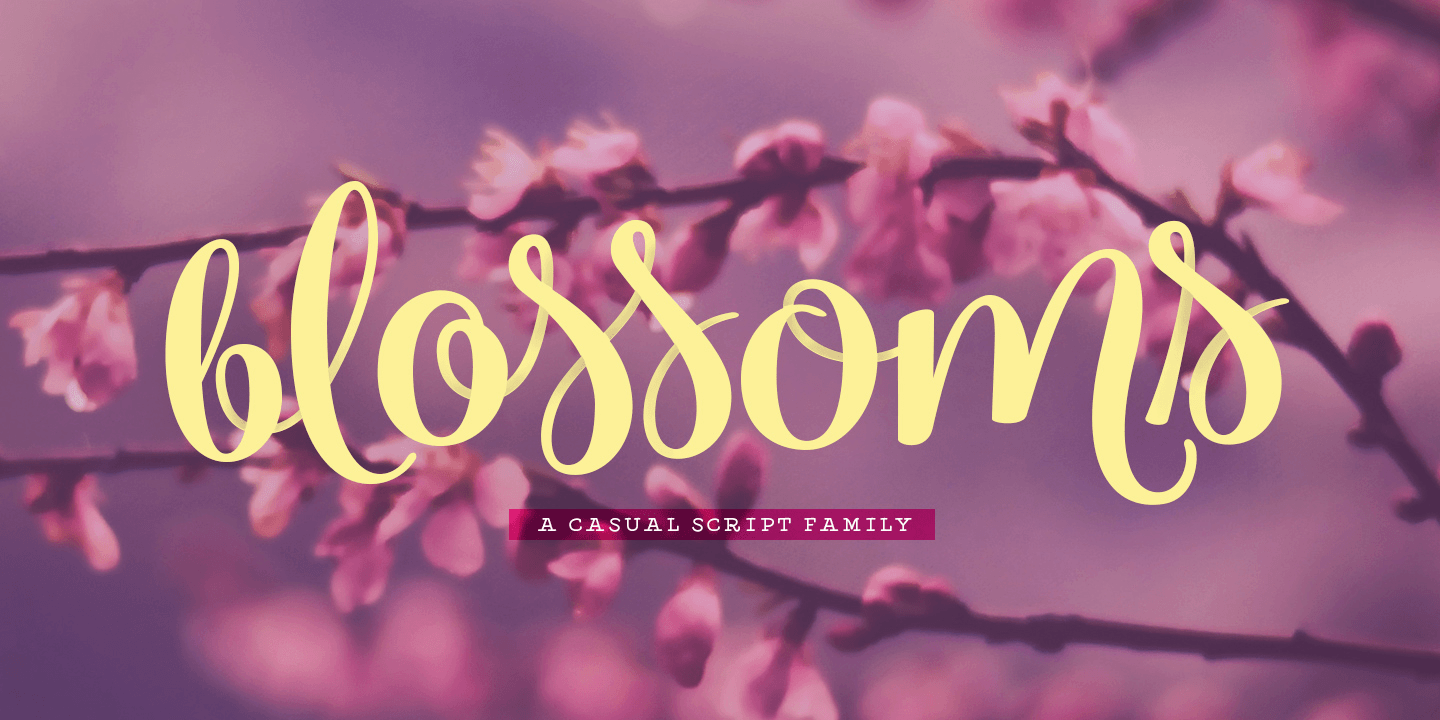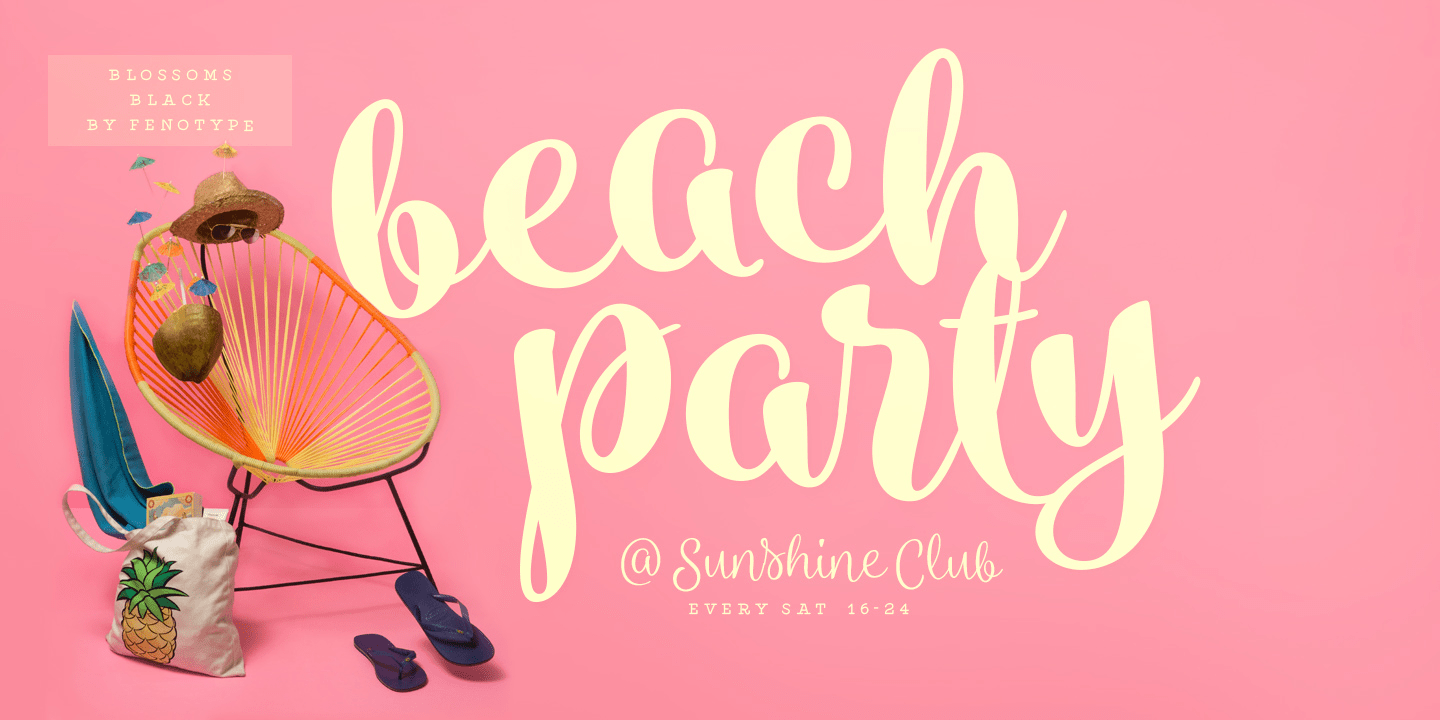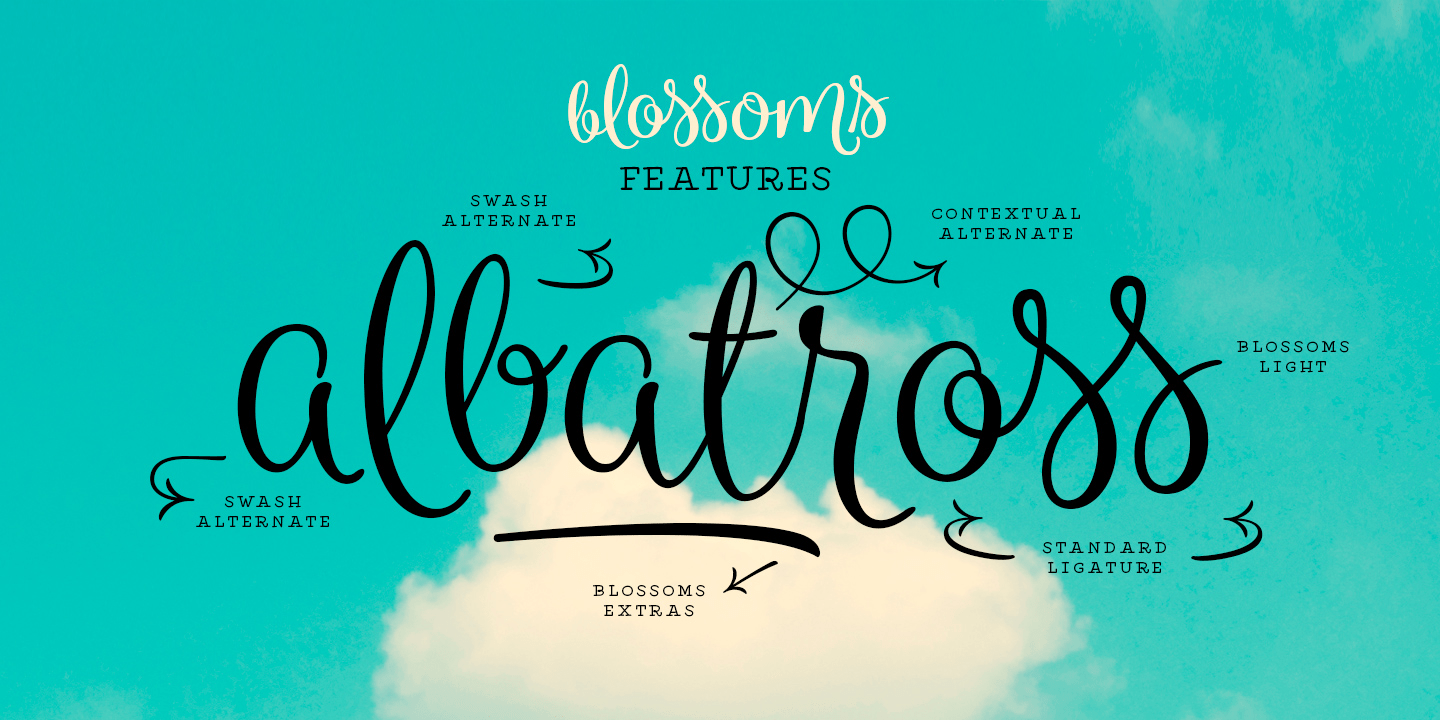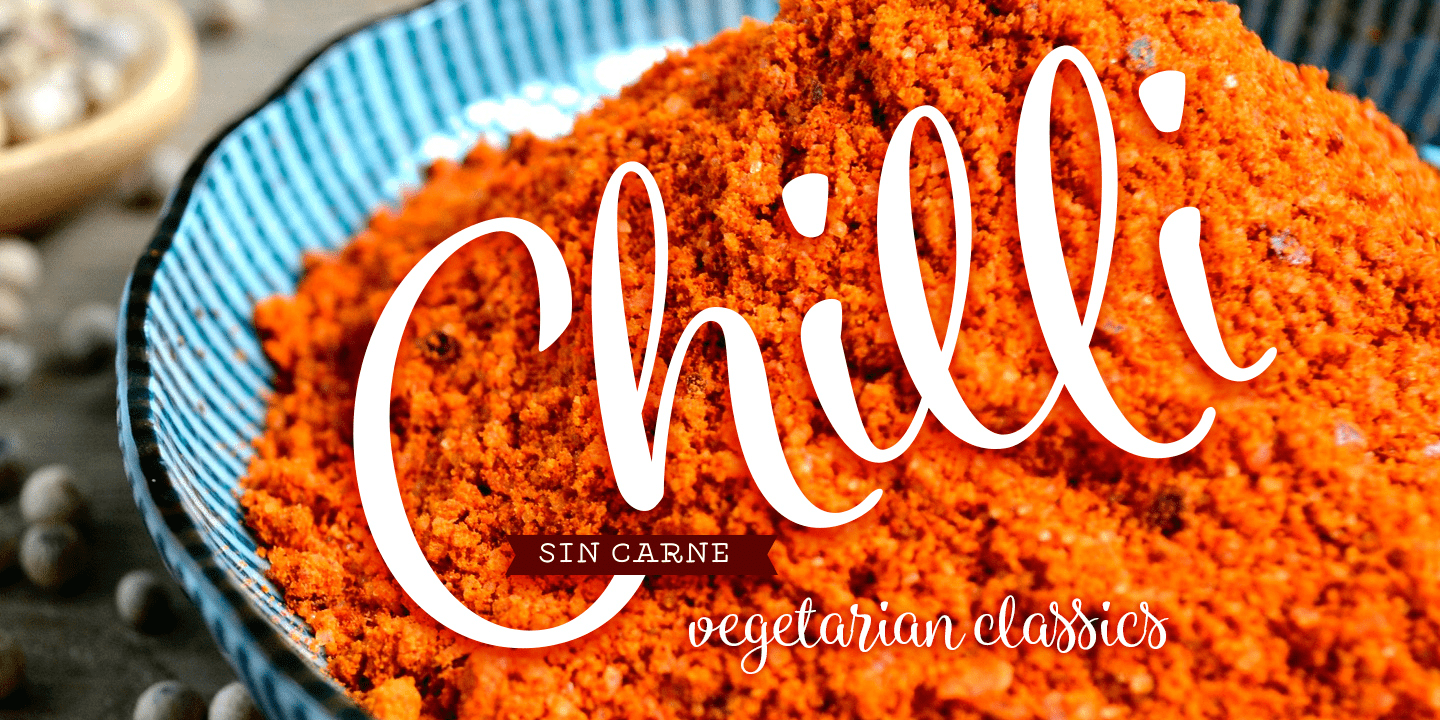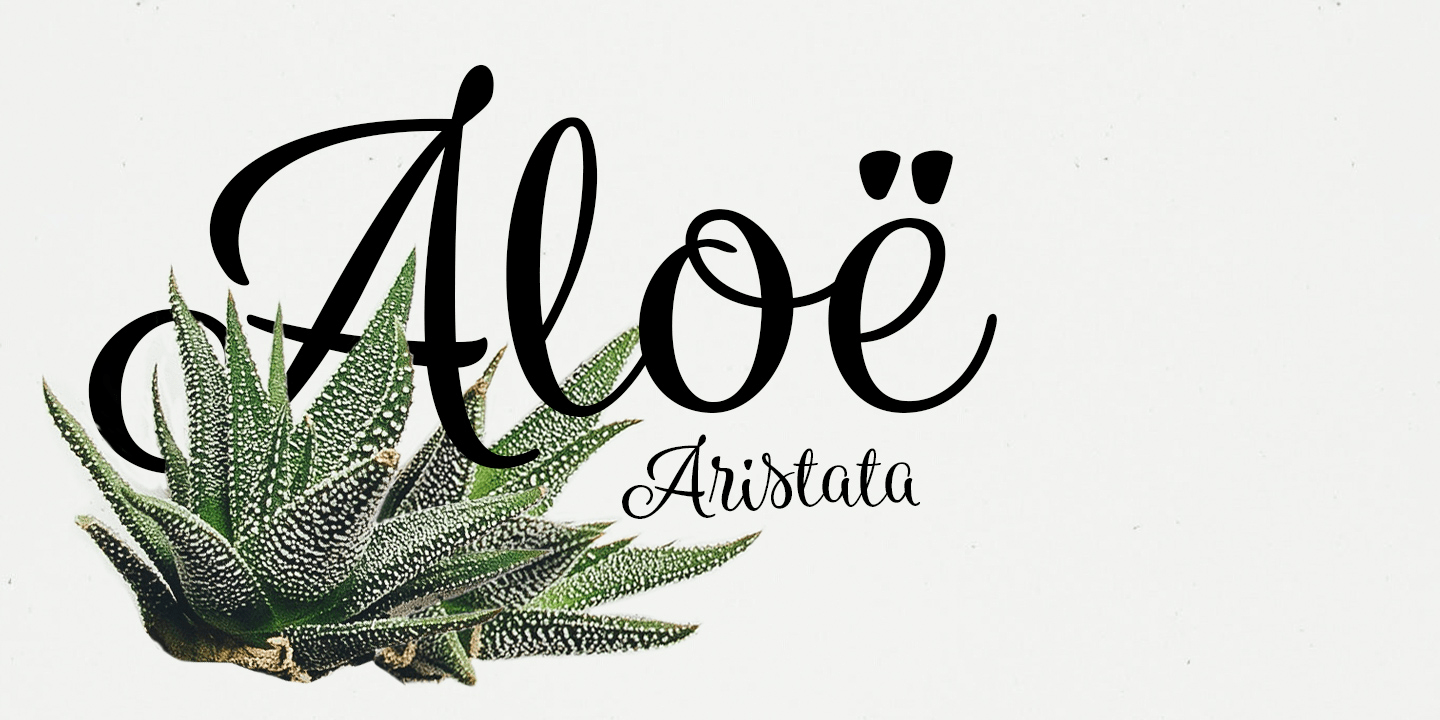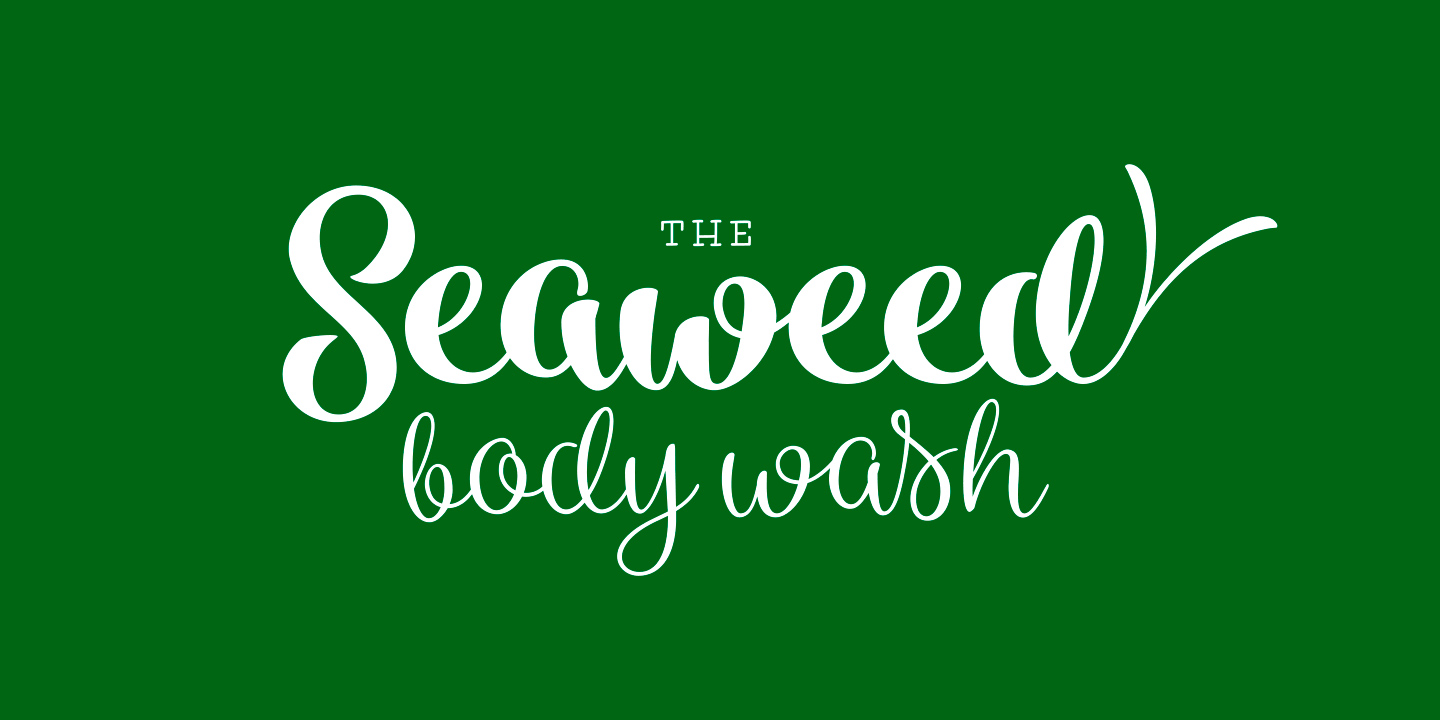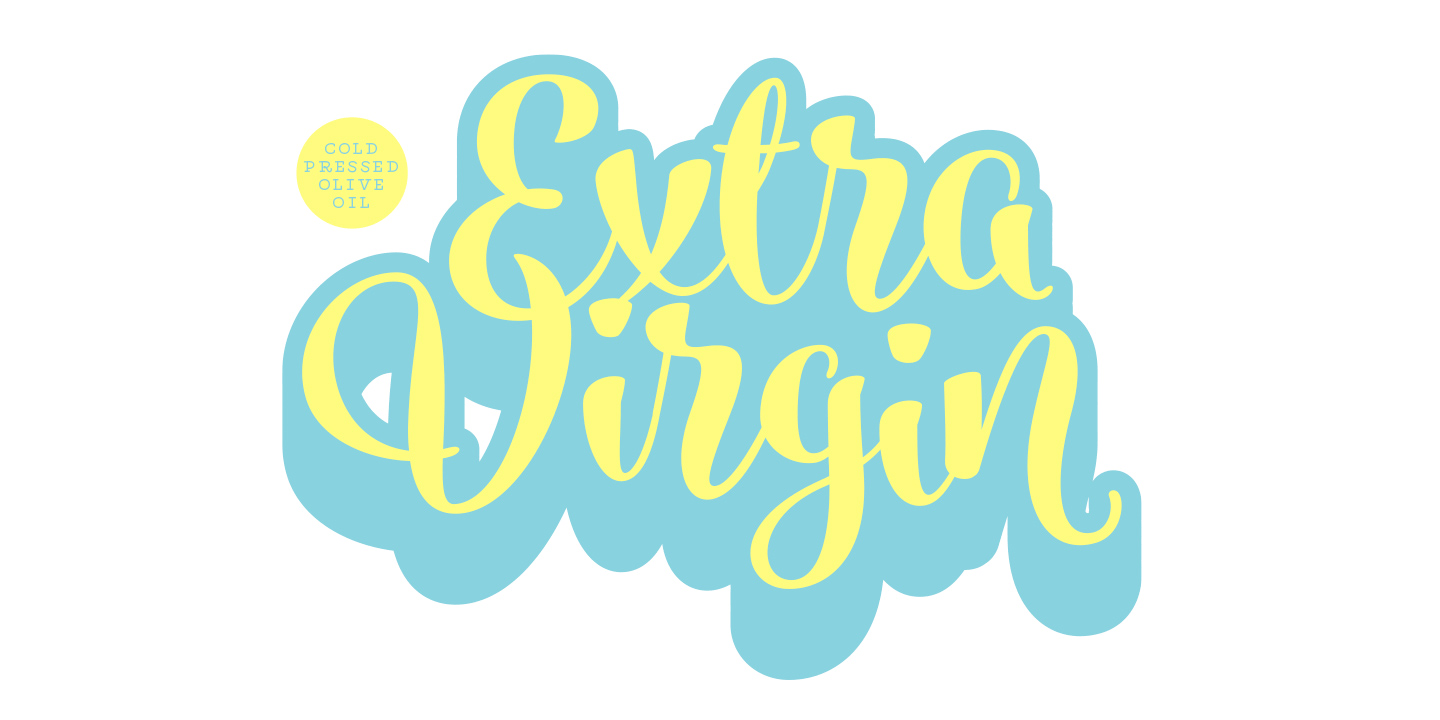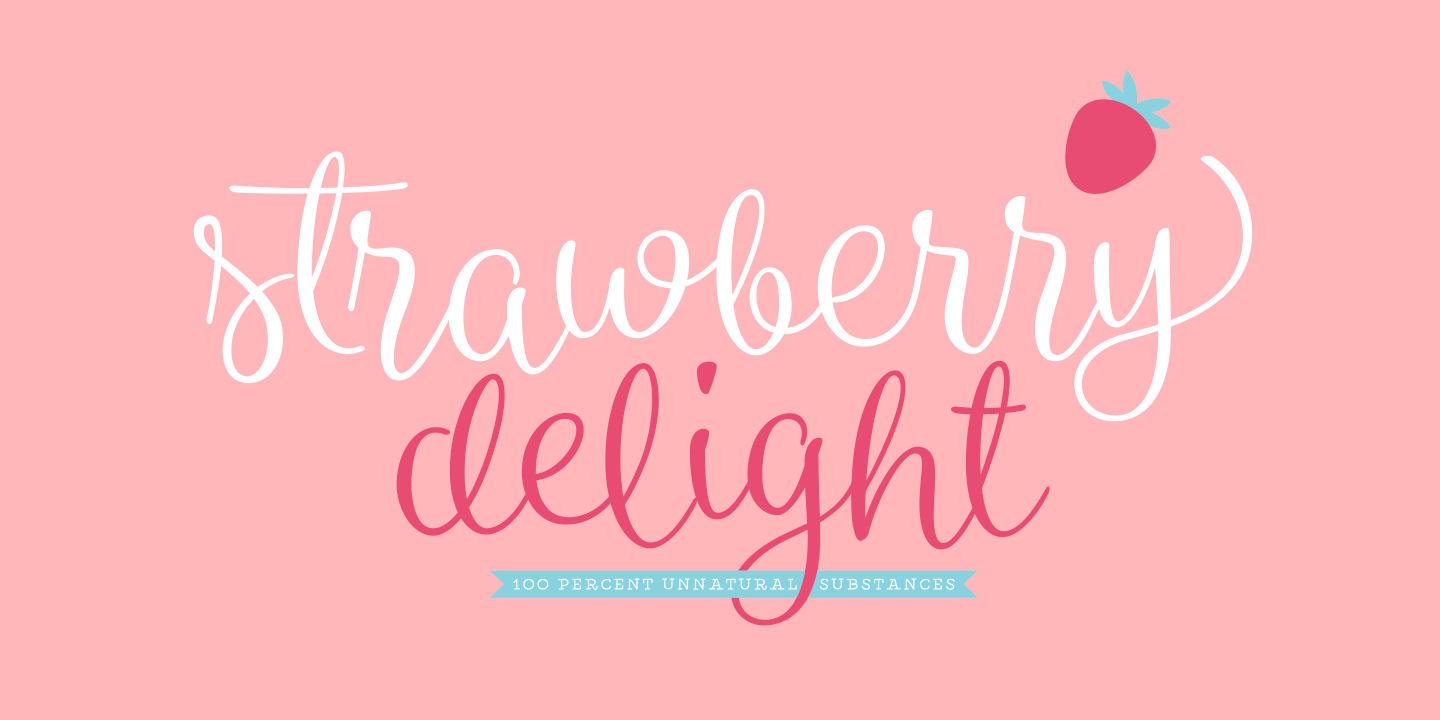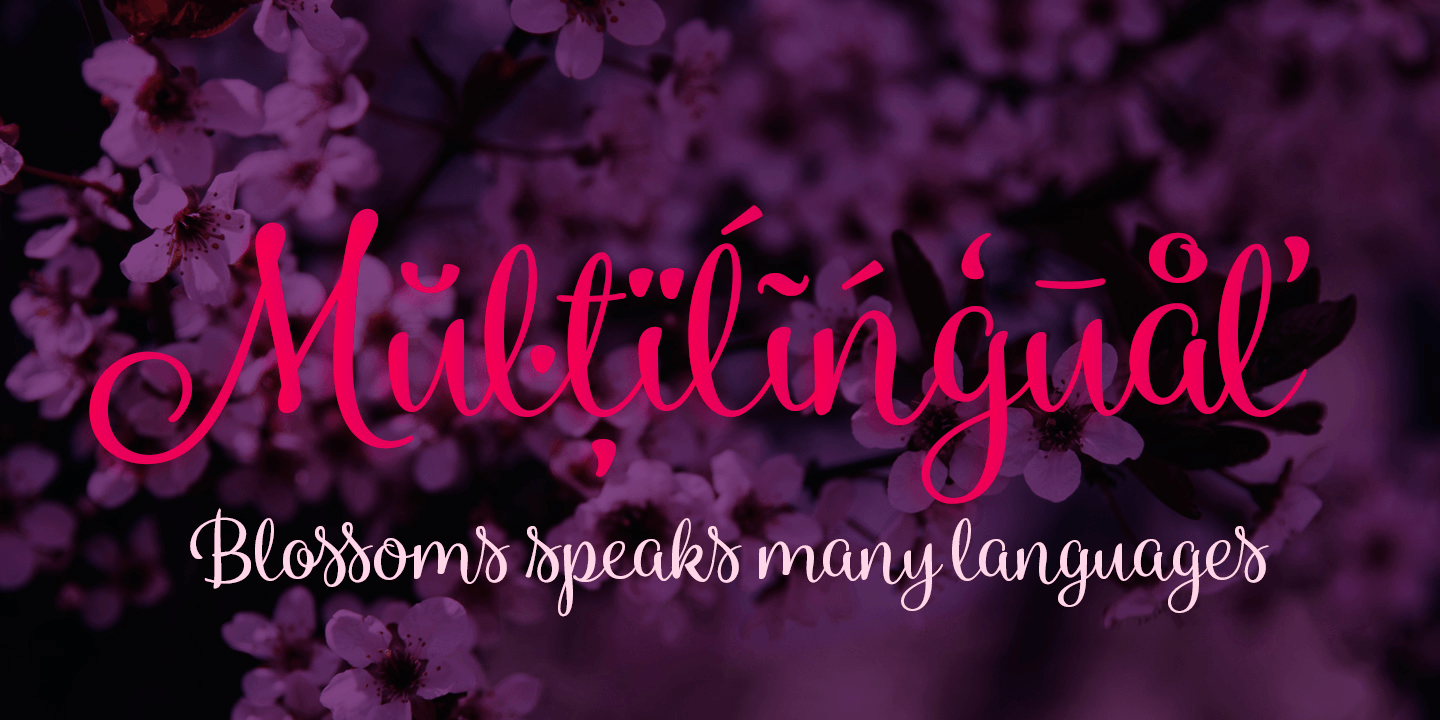
Blossoms
Font Family by Fenotype
Blossoms is a fresh connected script family of four weights and a pack of Extras. It's packed with Contextual Alternates and Standard Ligatures that will keep the flow natural and for extra impact there's Swash and Titling Alternates, and even more alternates to choose from in the Glyph Palette. You can also combine it with Blossoms Extras to add swashy beginnings and endings.
Blossoms is a radiant display font choice for any project from branding to packaging and from websites to greeting cards.